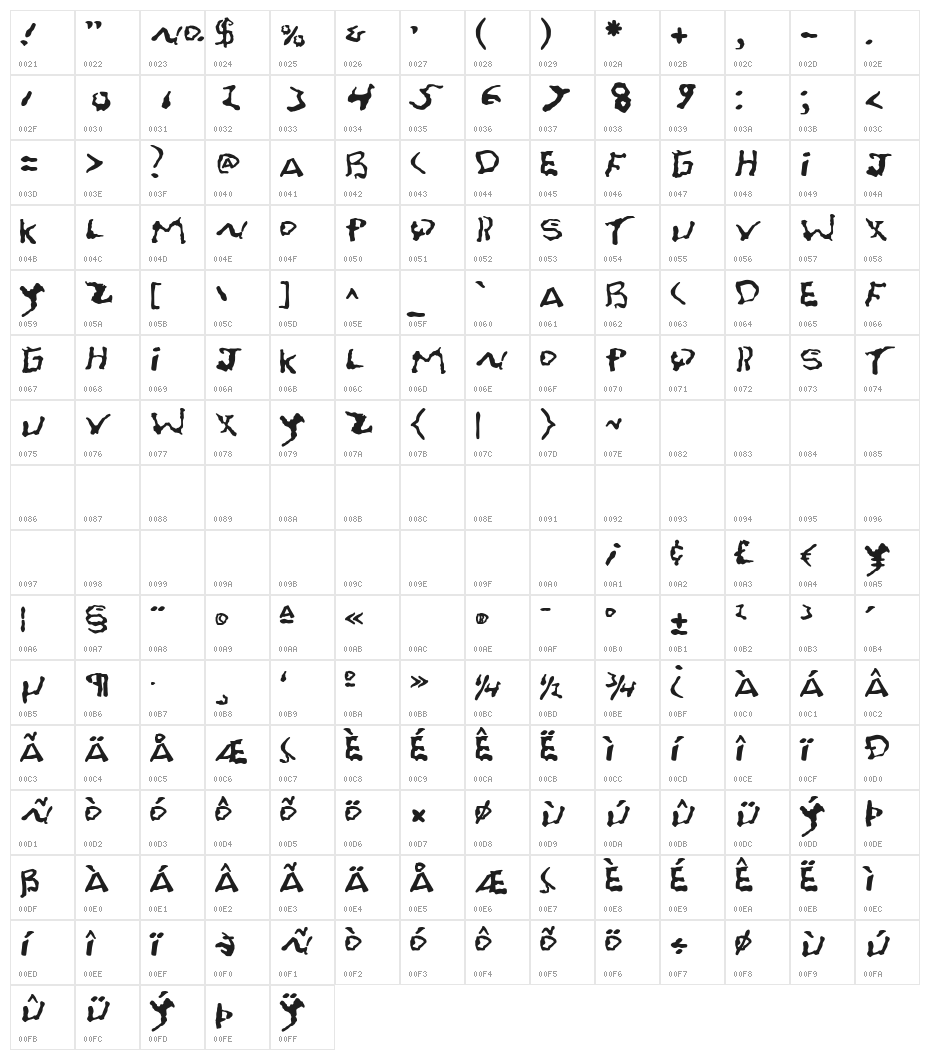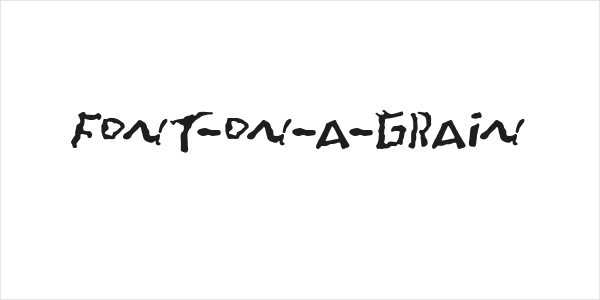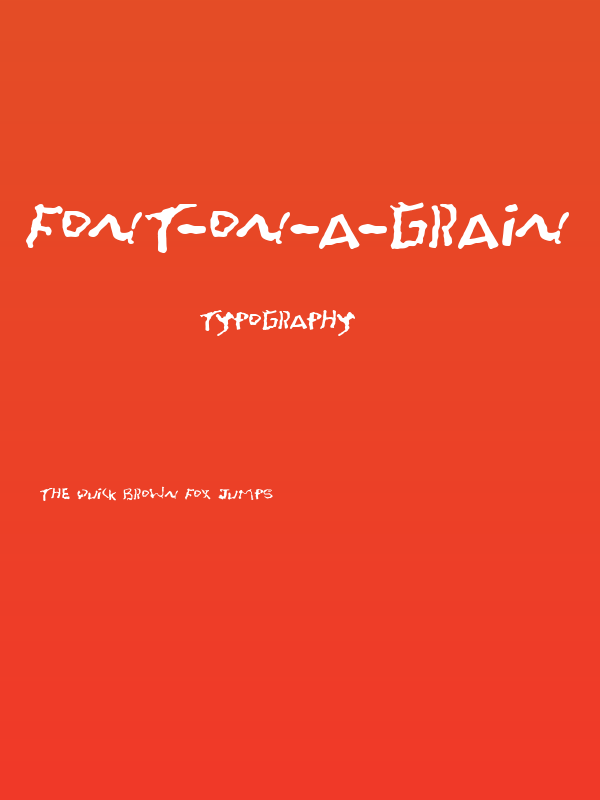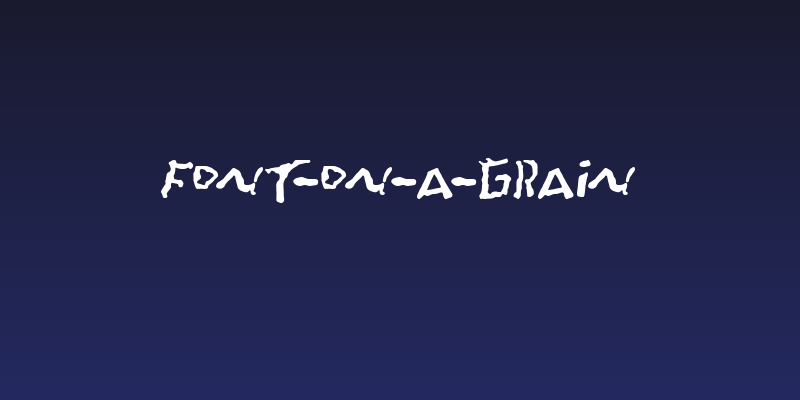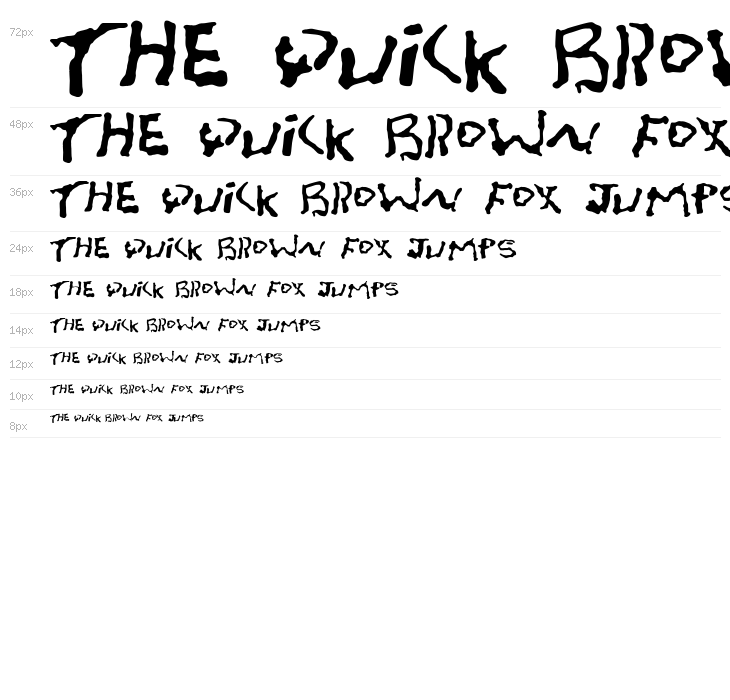
Font-On-A-Grain Font
Font-On-A-Grain Description
This font features a rugged and organic appearance, reminiscent of letters carved into stone or wood. The characters are irregular and jagged, giving a raw and natural feel. Each letter has a unique shape, with uneven edges and varying thickness, creating a sense of movement and energy. The font maintains a consistent baseline, but the heights and widths of the characters vary, adding to its dynamic look. The numbers and special characters follow the same style, ensuring a cohesive design throughout. This font is ideal for projects that require a bold and earthy aesthetic.
| Overall Style | Rustic, Organic |
| Use Case | Logos, Posters, Artistic Designs |
| Proposed Projects | Perfect for nature-themed designs, rustic branding, or artistic projects that require a raw, natural look. |